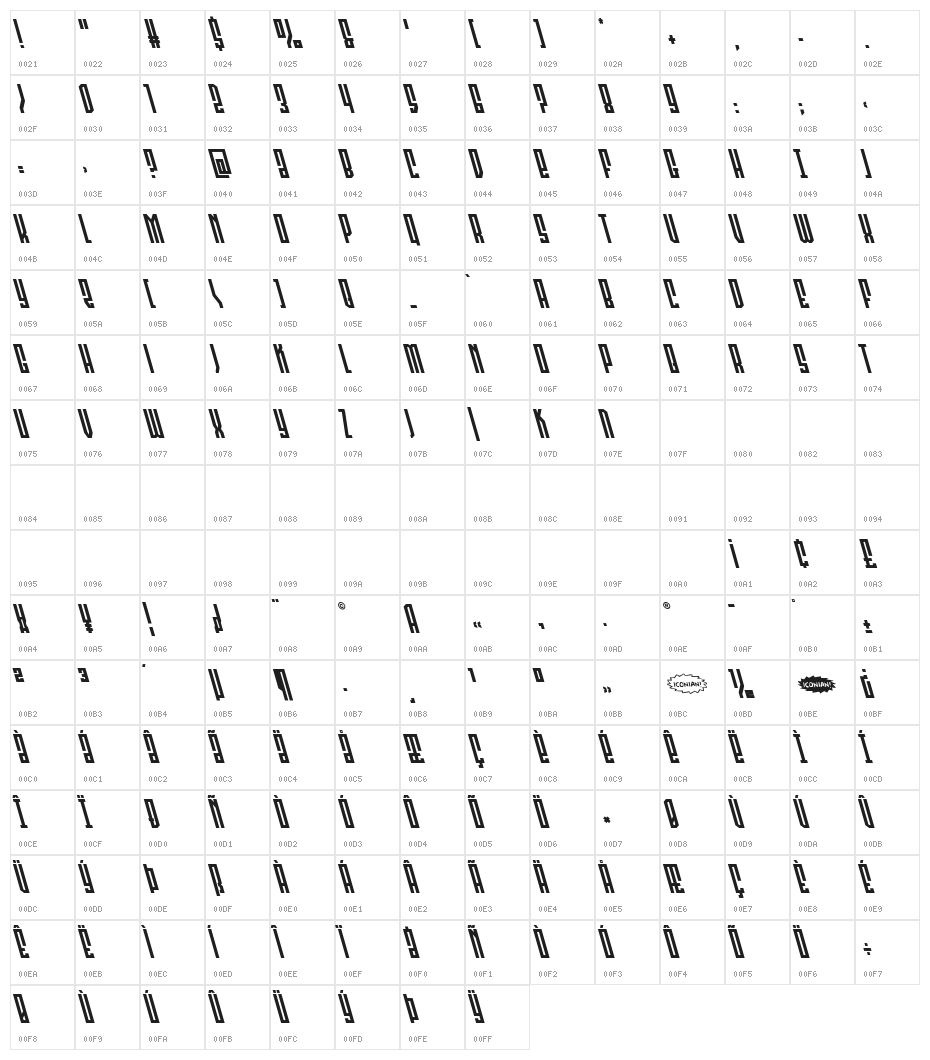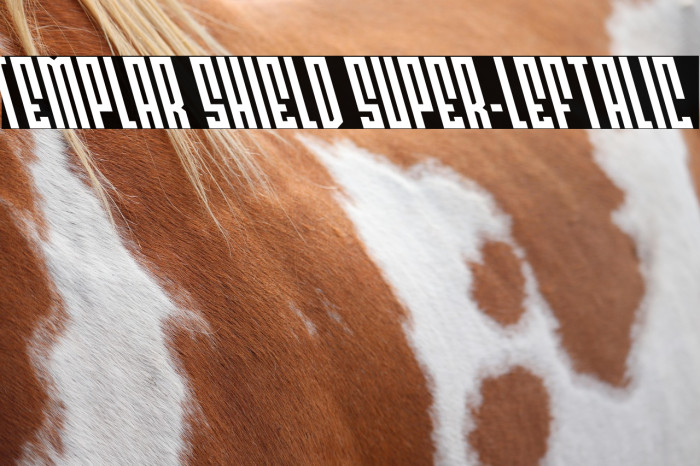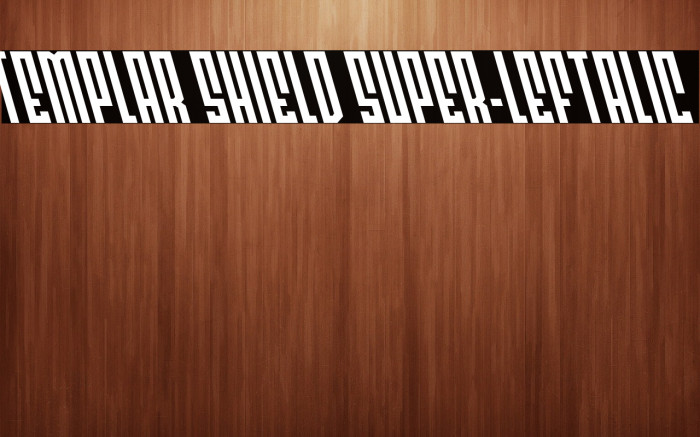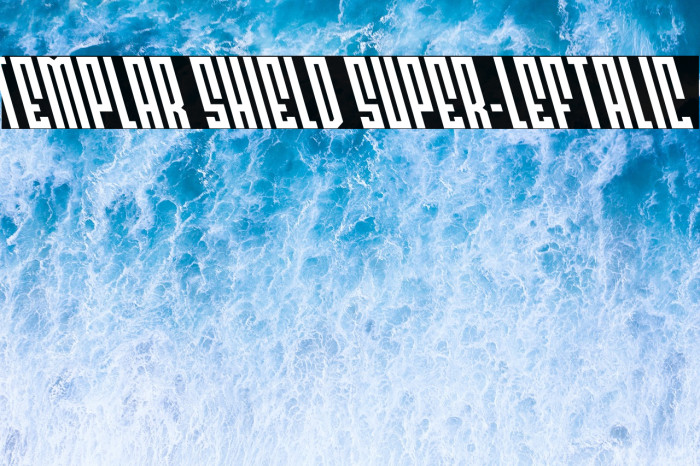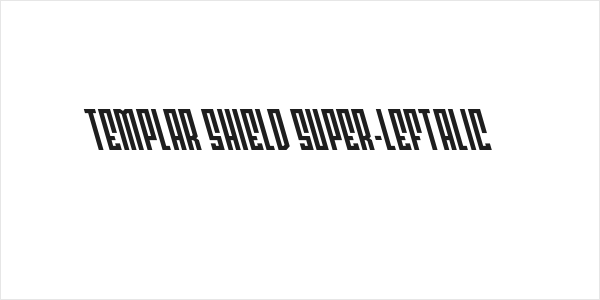
Templar Shield Super-Leftalic Font
Templar Shield Super-Leftalic Description
This font features a bold, angular design with a strong leftward slant, giving it a dynamic and aggressive appearance. The characters are tightly spaced, enhancing its compact and impactful look. The strokes are consistent in thickness, providing a uniform and cohesive style. This font's geometric shapes and sharp edges convey a sense of strength and modernity, making it suitable for projects that require a bold statement. The uppercase and lowercase letters maintain a consistent style, with numerals and special characters following the same design principles.
| Proposed Projects | Ideal for sports branding, action-themed posters, and dynamic logo designs. |